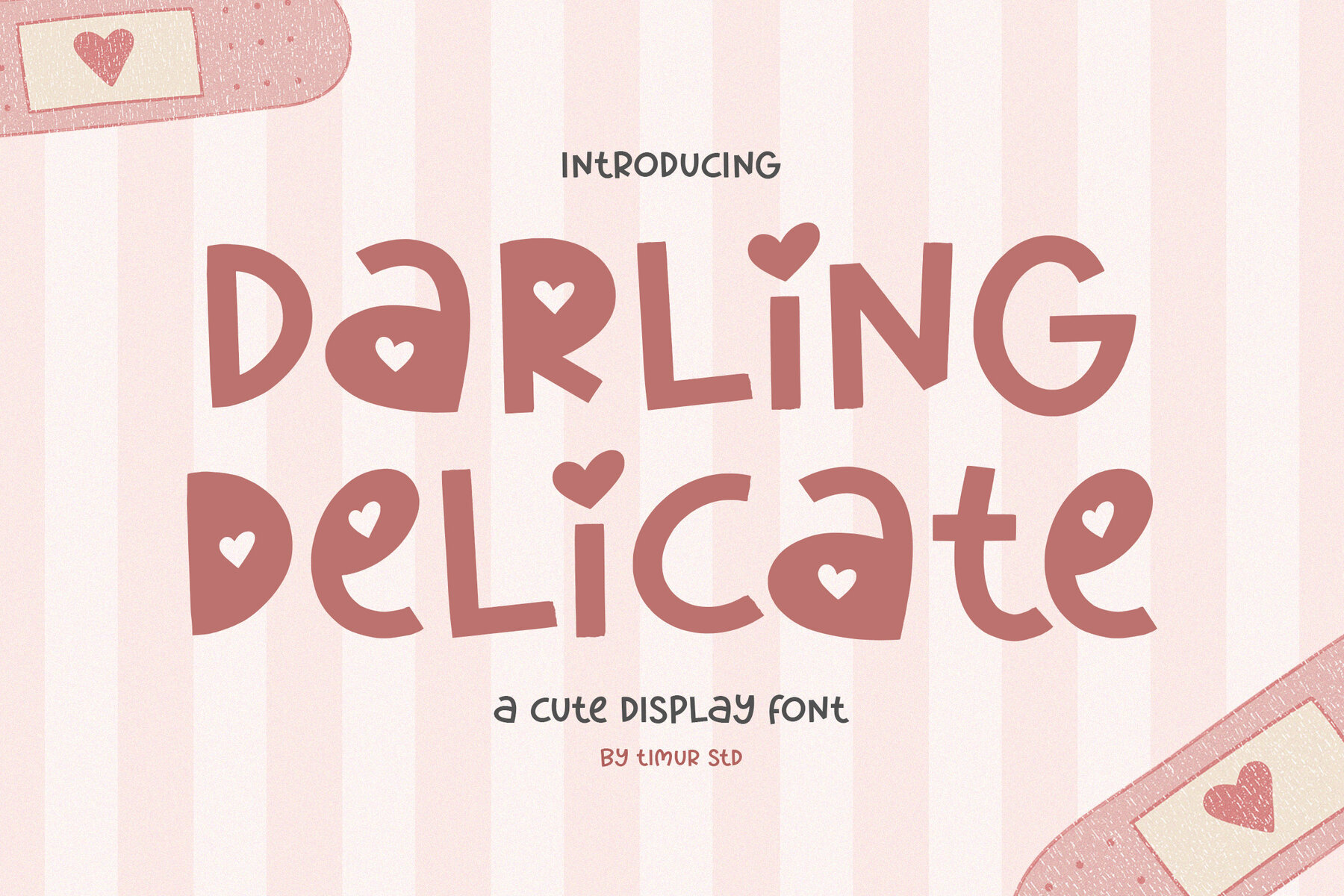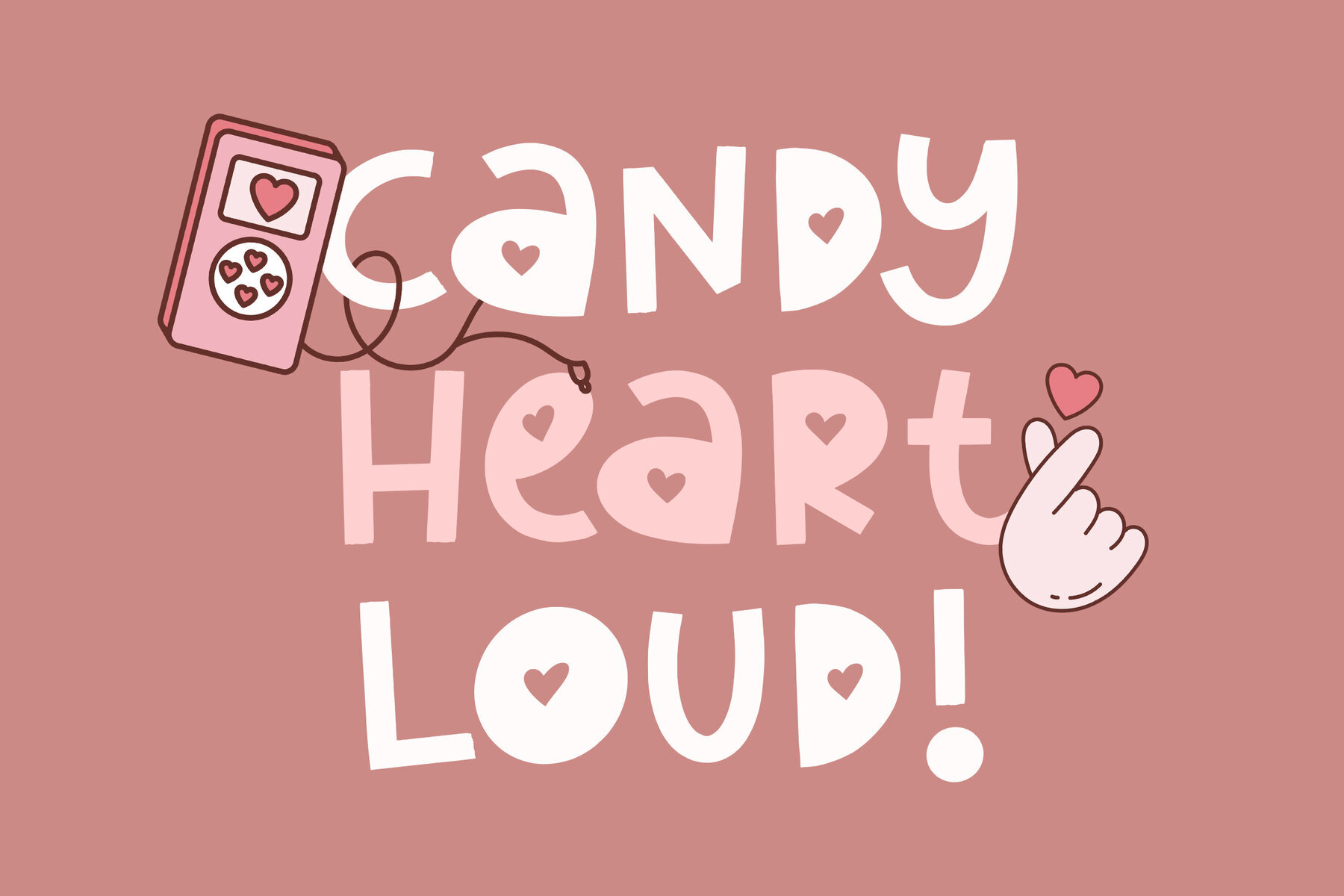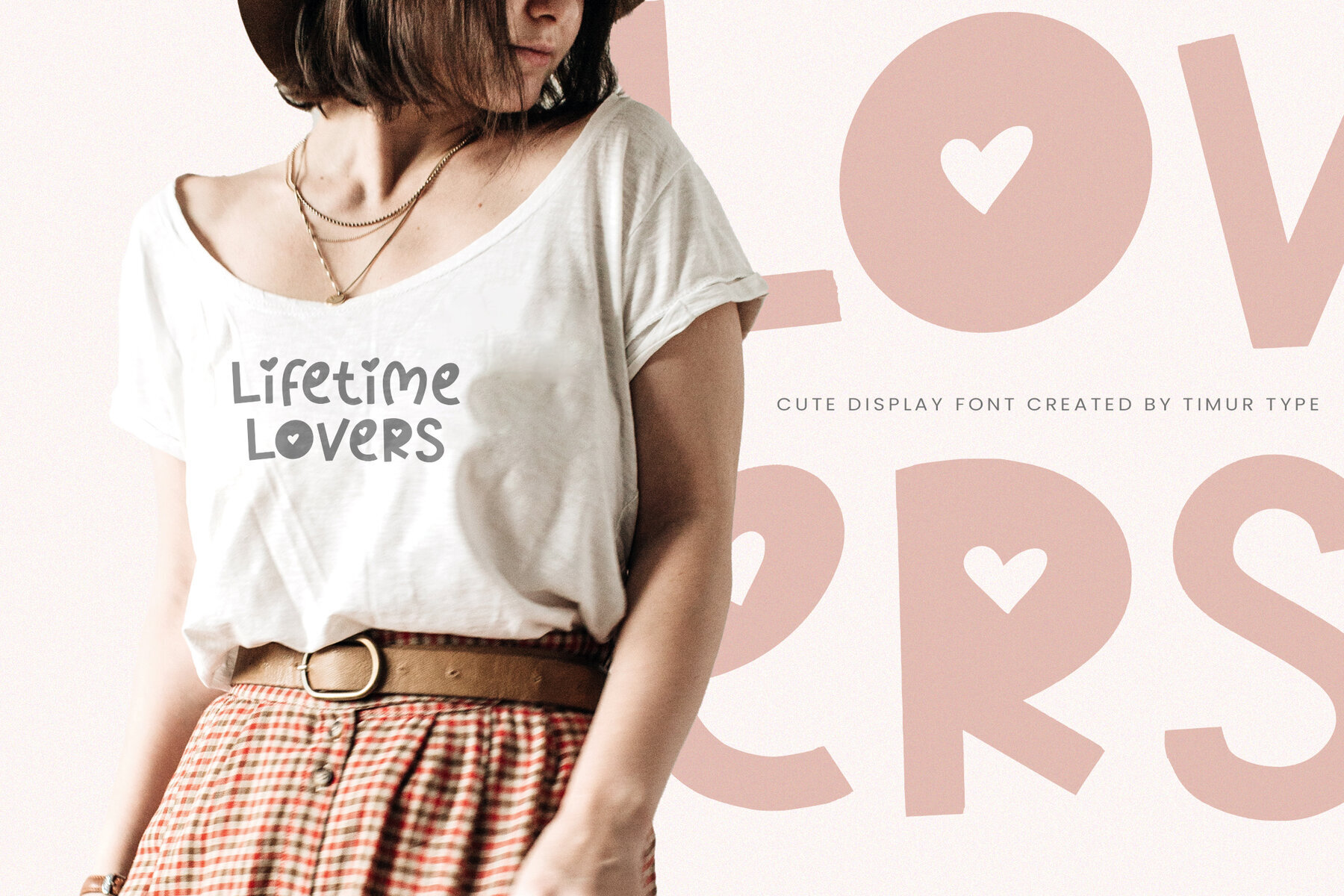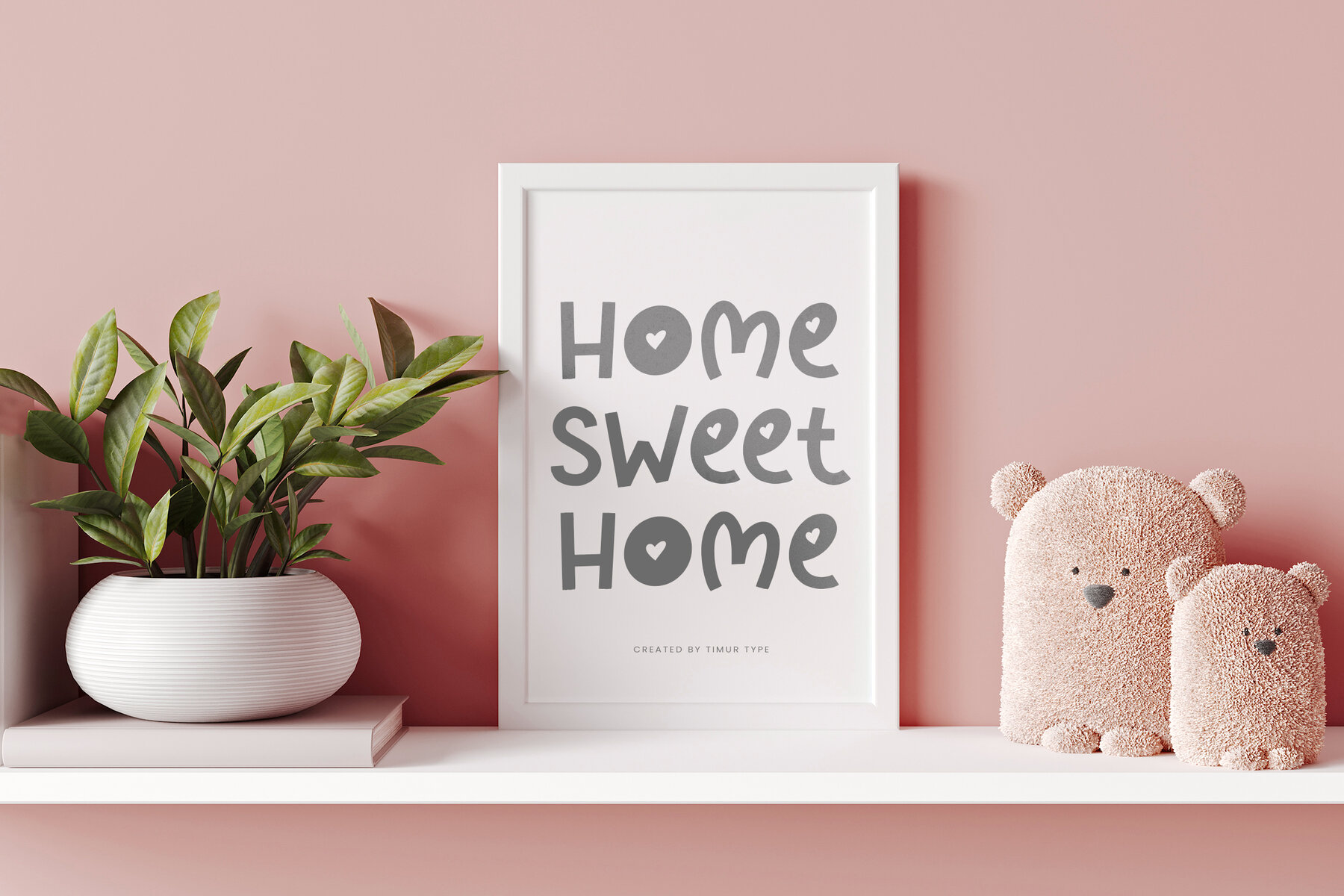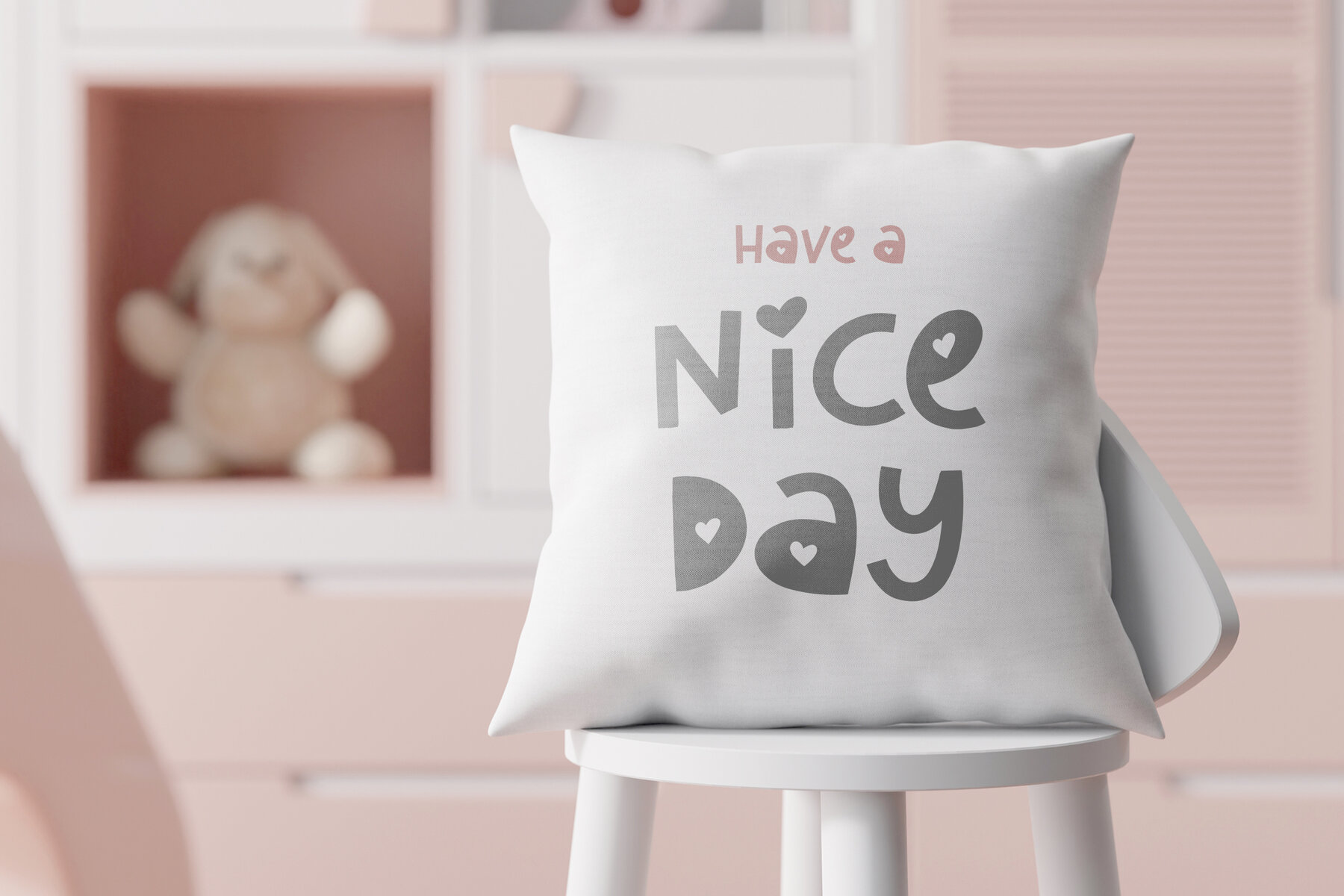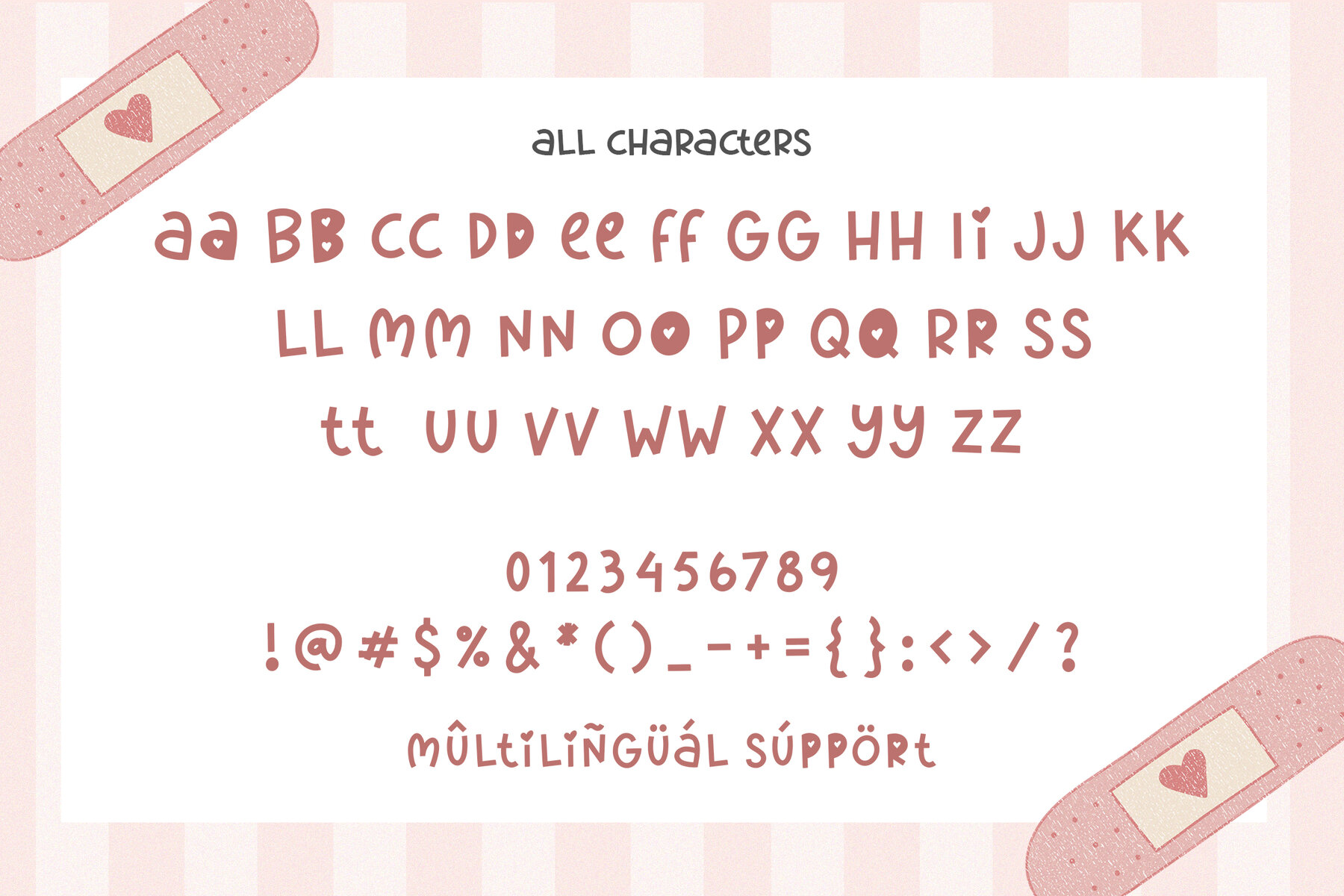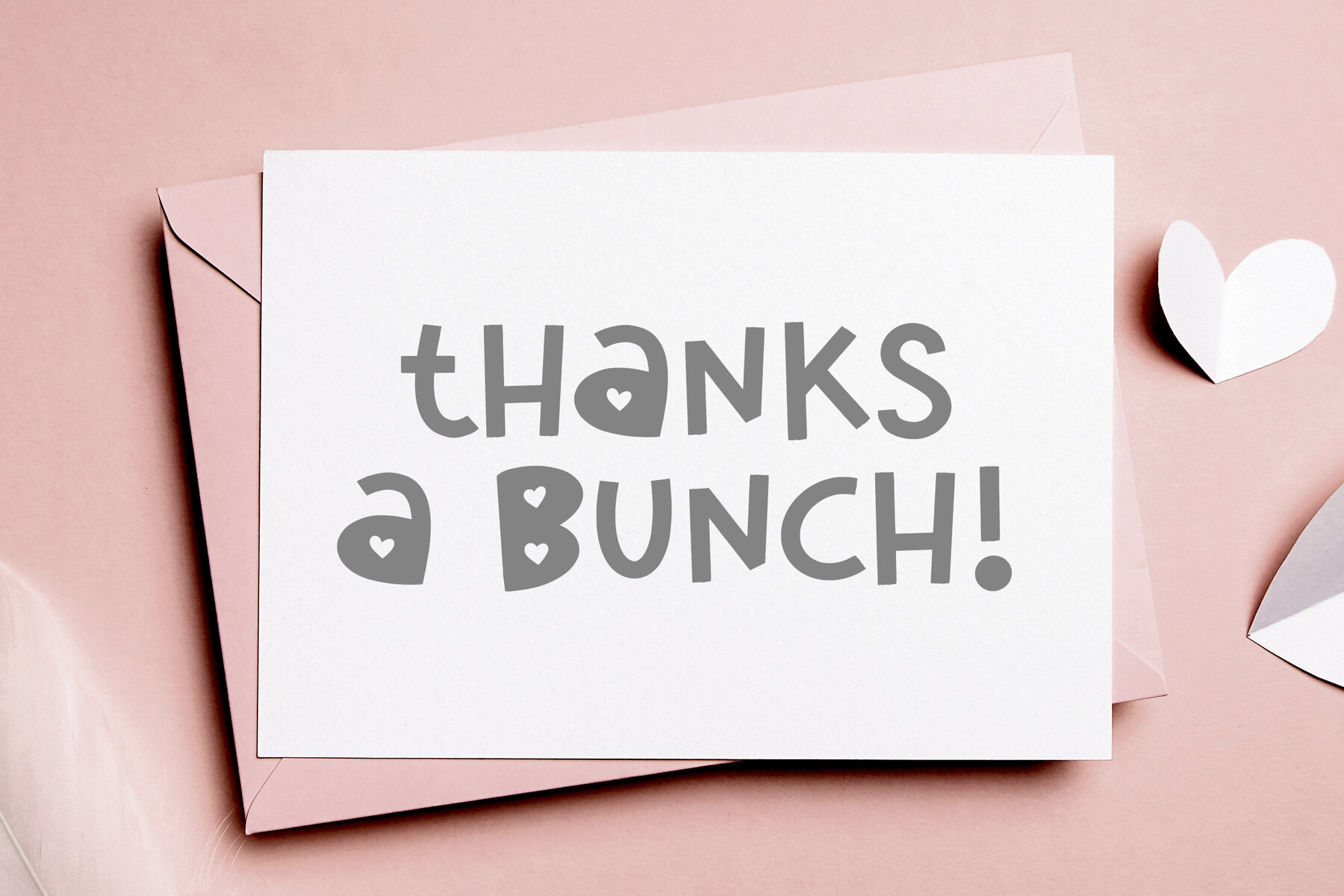
Darling Delicate Font
Darling Delicate
Darling Delicate is a charming display font that brings an adorable aesthetic to your design projects. This playful typeface features delightful letterforms with rounded edges, sweet symbols, and endearing embellishments. Perfect for eye-catching headings, logos, and titles, it evokes a sense of warmth and friendliness.
Ideal for children's books, branding projects, or social media graphics, Darling Delicate infuses joy and innocence into your designs. Enhance your creative work with this irresistibly charming and inviting font, making every project stand out with its cheerful style.